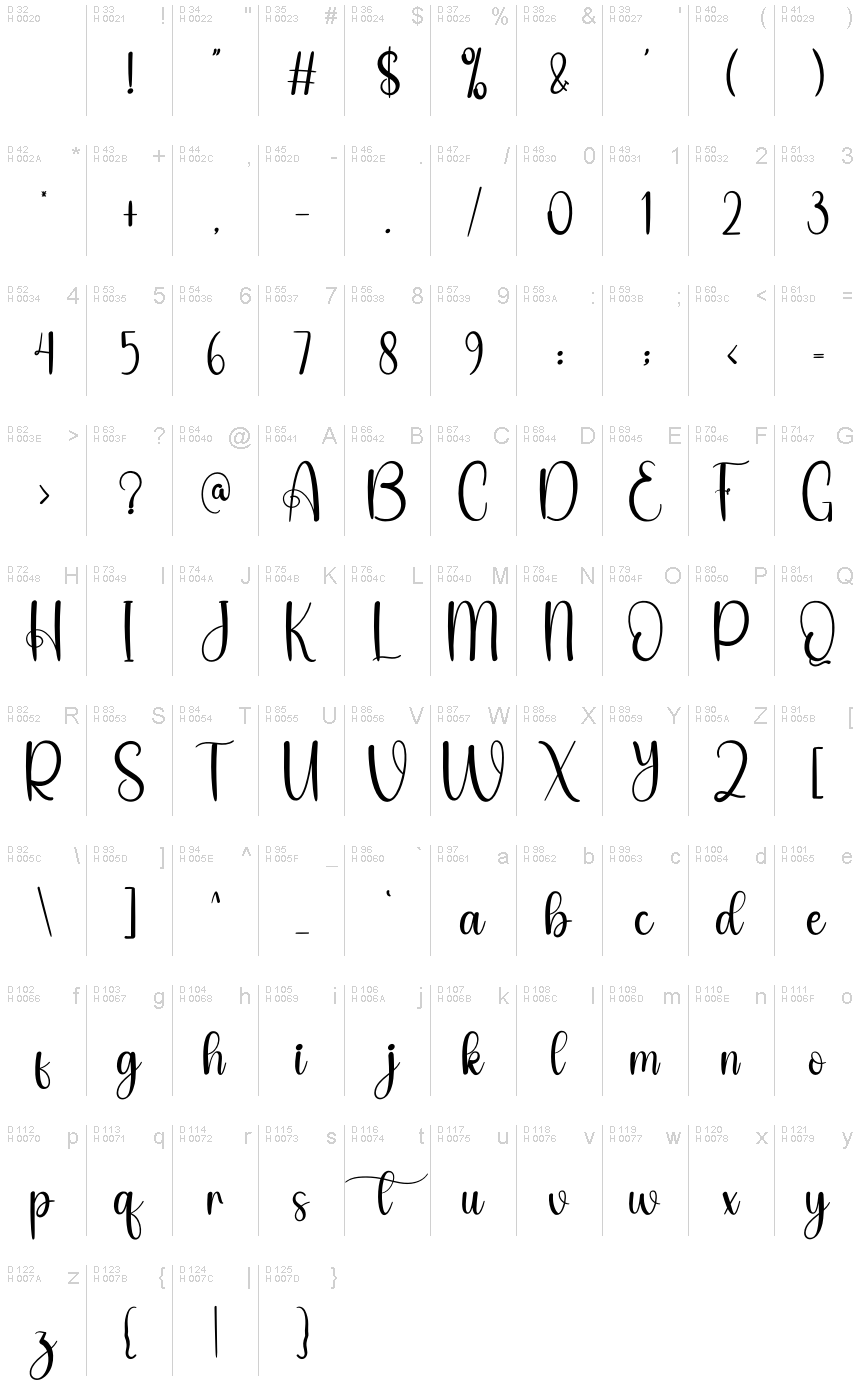
Simple Book
Simple Book font, crafted by Andi Moz, enchants with its sweet and friendly handwritten style. This playful font showcases a lively, flowing script that adds a charming touch to any design. Perfect for wedding invitations, greeting cards, or creative projects needing a fun twist, Simple Book stands out as both cute and inviting.
Its unique handwritten appeal captures the essence of warmth and spontaneity. Whether you're aiming to create heartfelt messages or lighthearted announcements, this versatile display font can elevate your designs effortlessly.